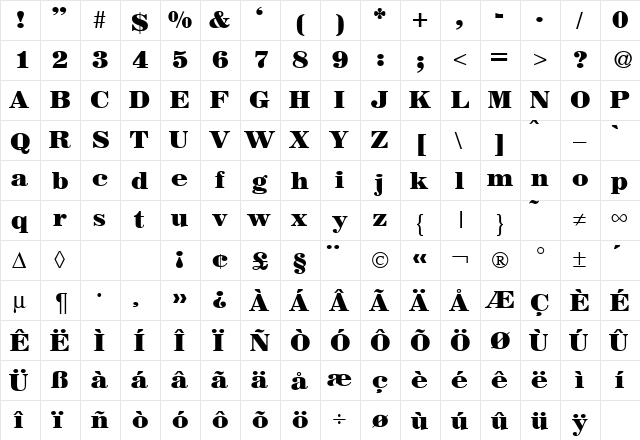
MagazineHeavy DB Regular
Design Context for MagazineHeavy DB Typeface
MagazineHeavy DB is a composed and adaptable typeface that performs quietly and consistently across a wide range of design contexts.